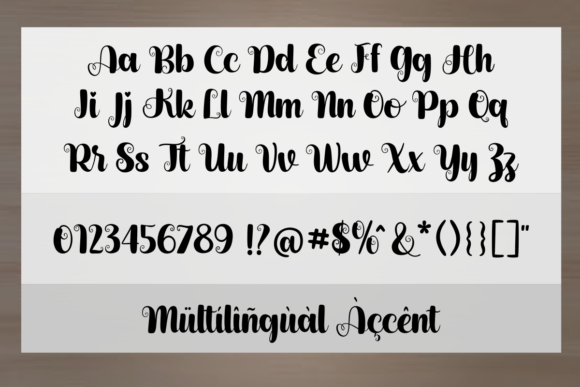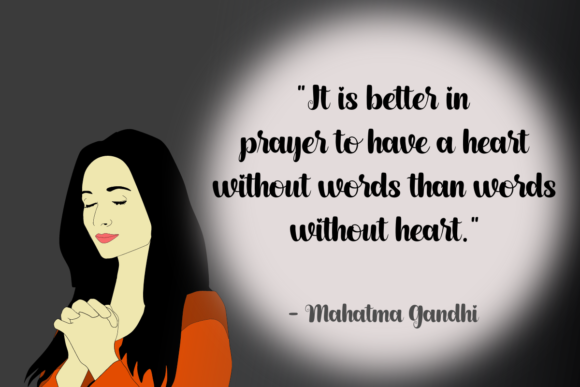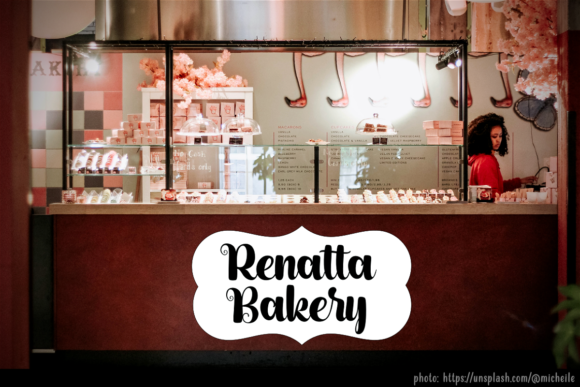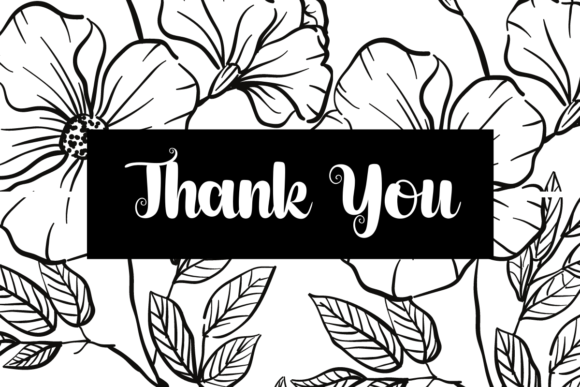
Letticia Font
About Letticia Font
Letticia is an elegant and bold script font. Fall in love with its incredibly versatile style and use it to create gorgeous wedding invitations, beautiful stationary art, eye-catching social media posts, and much more!